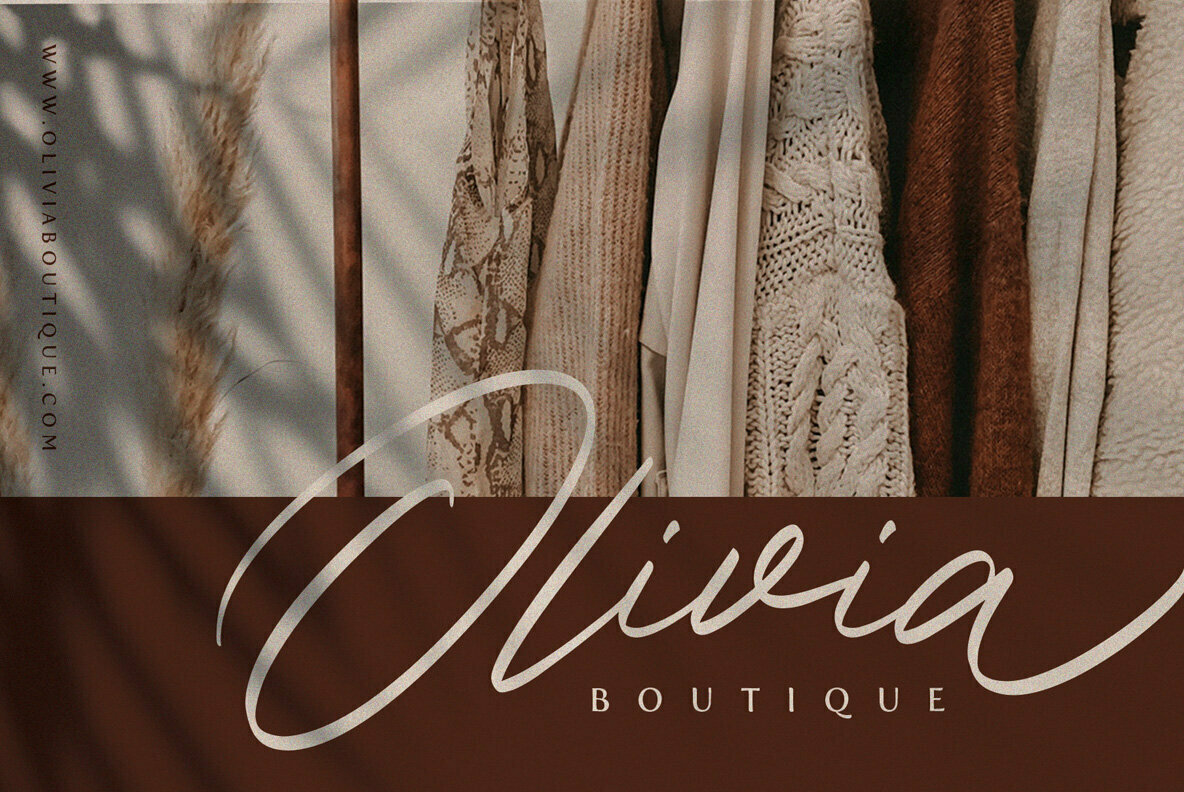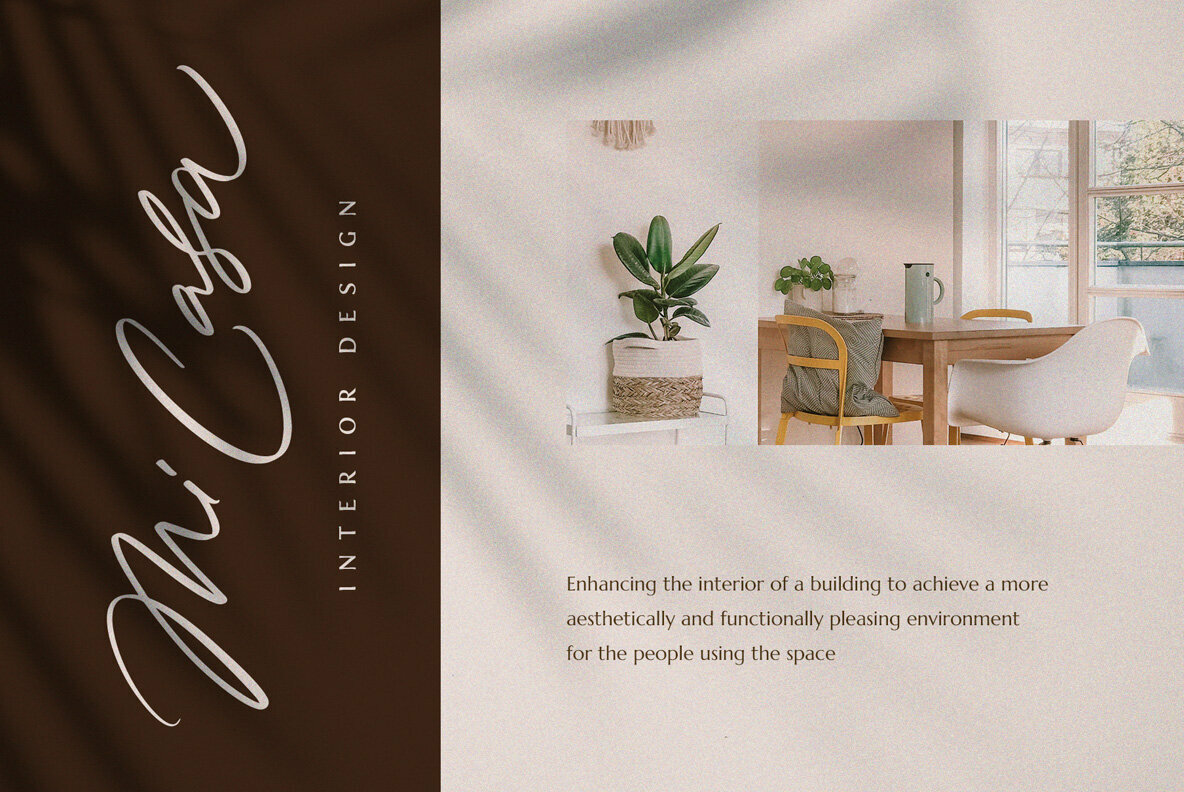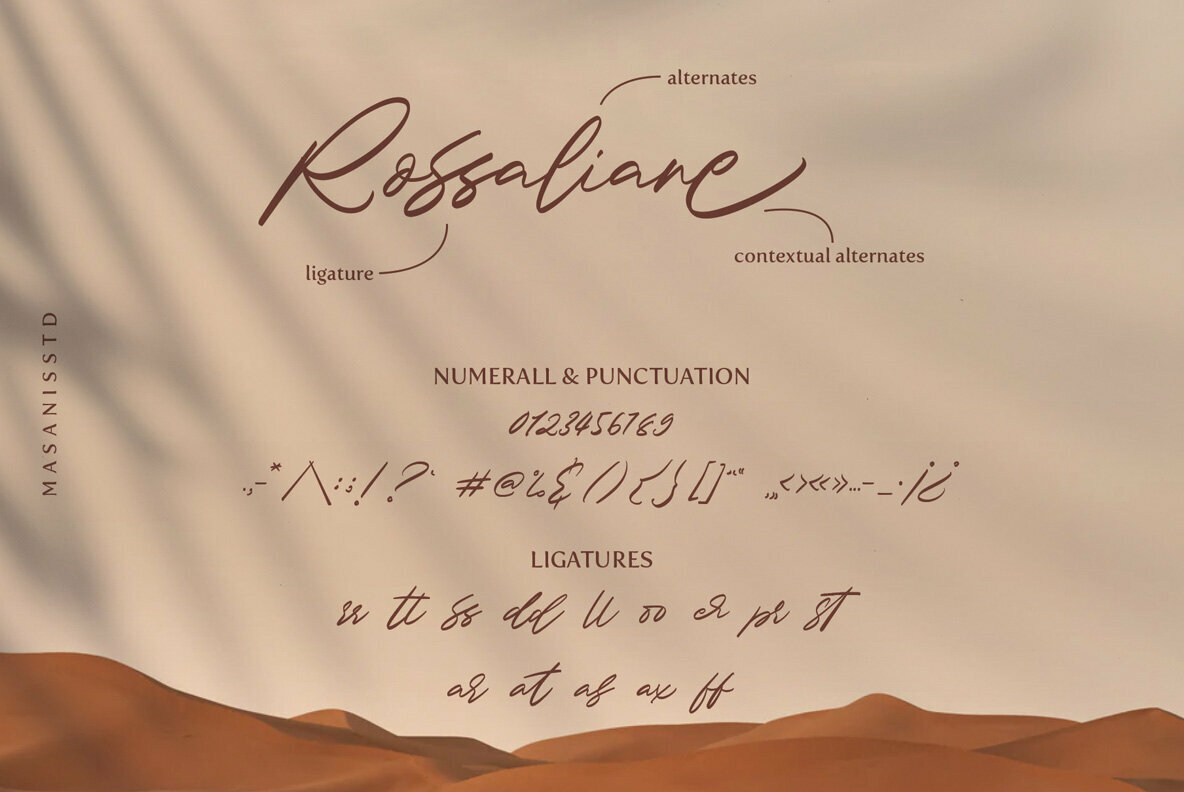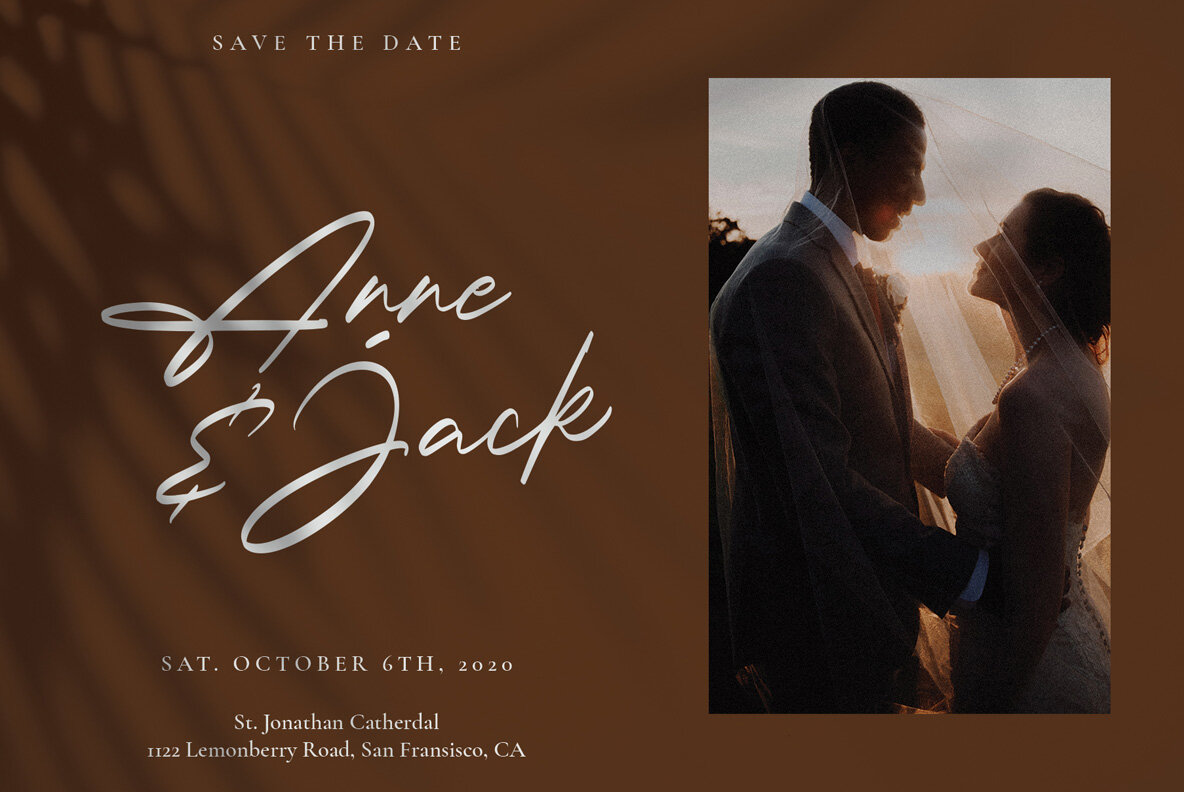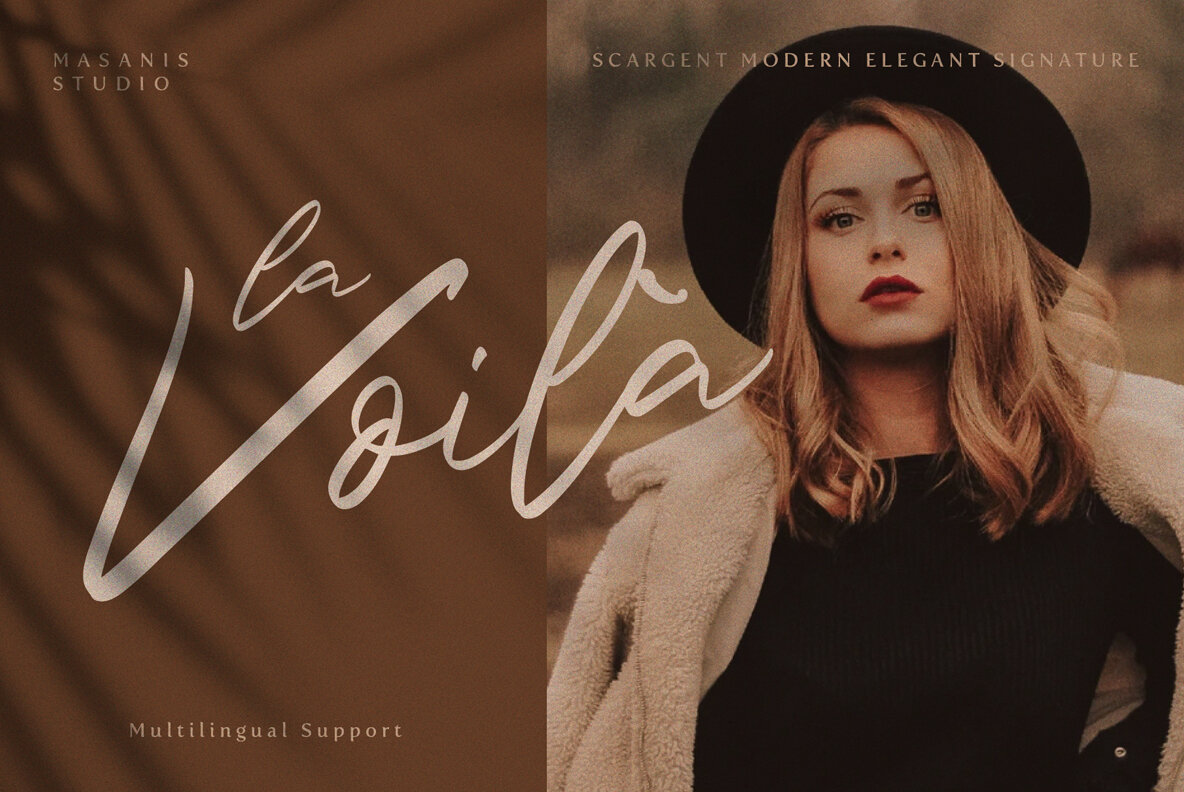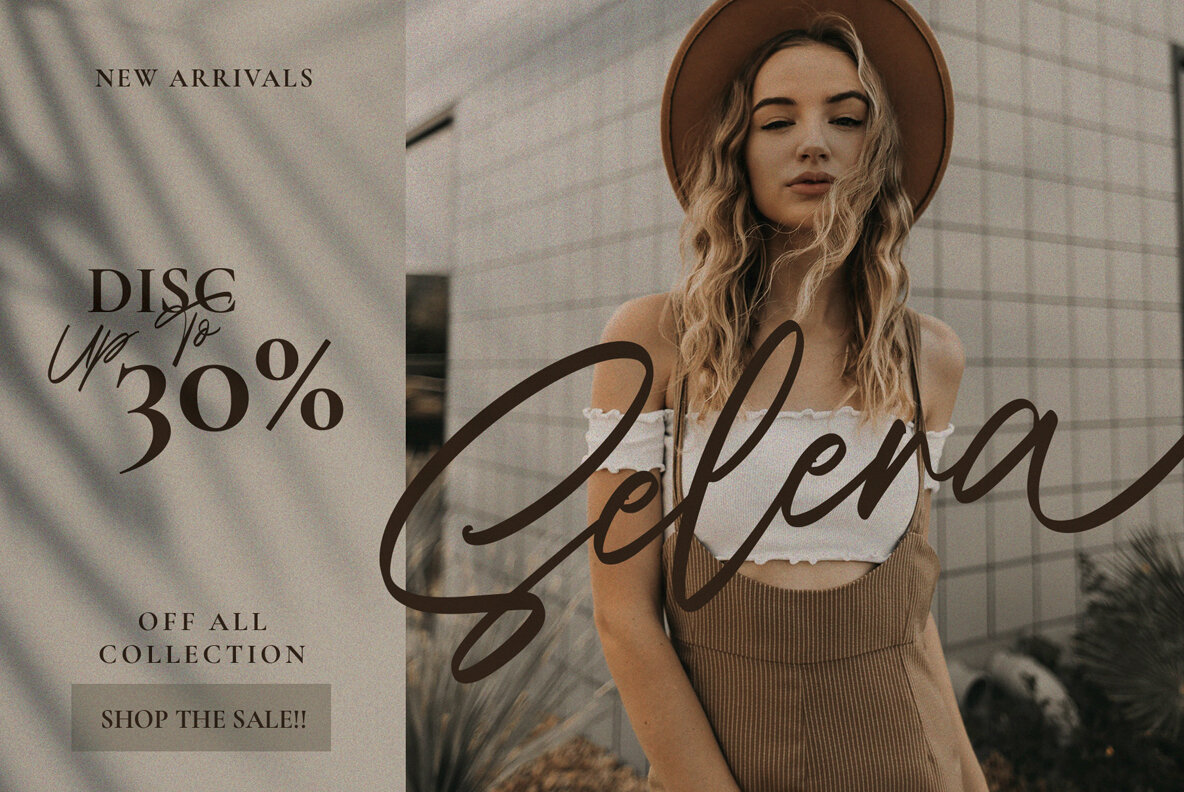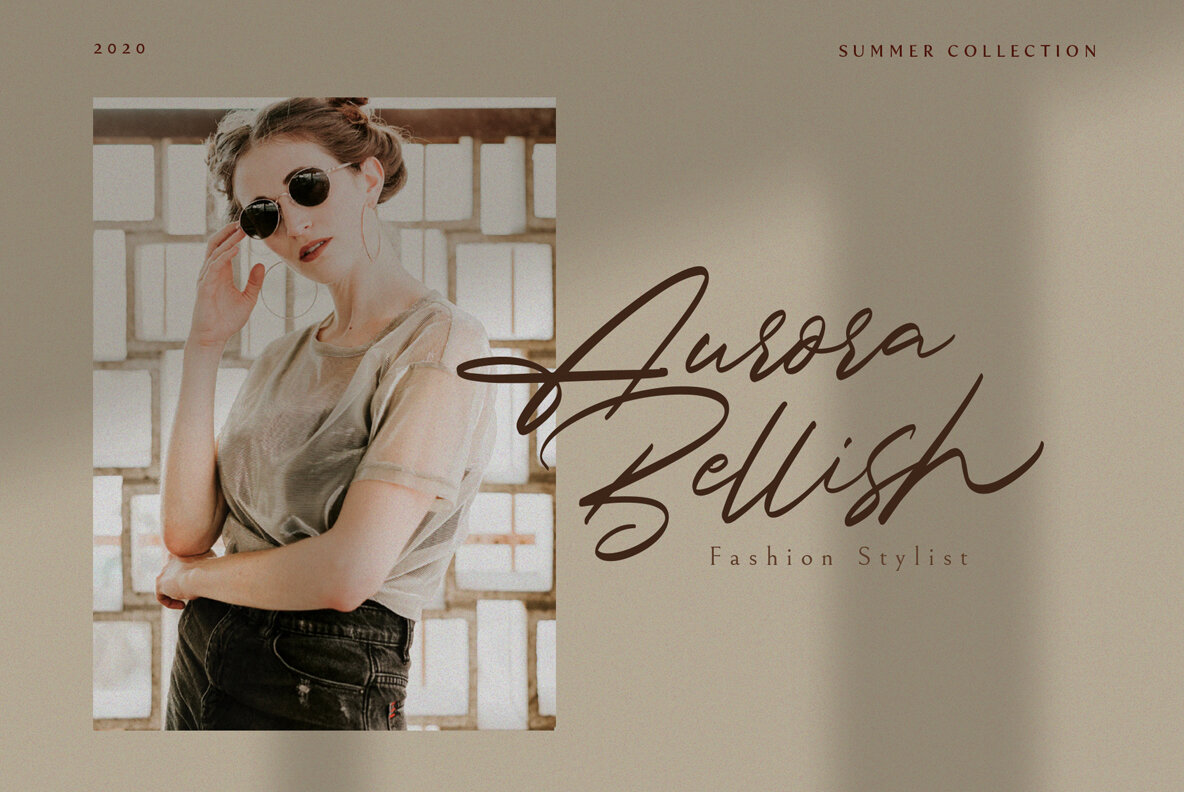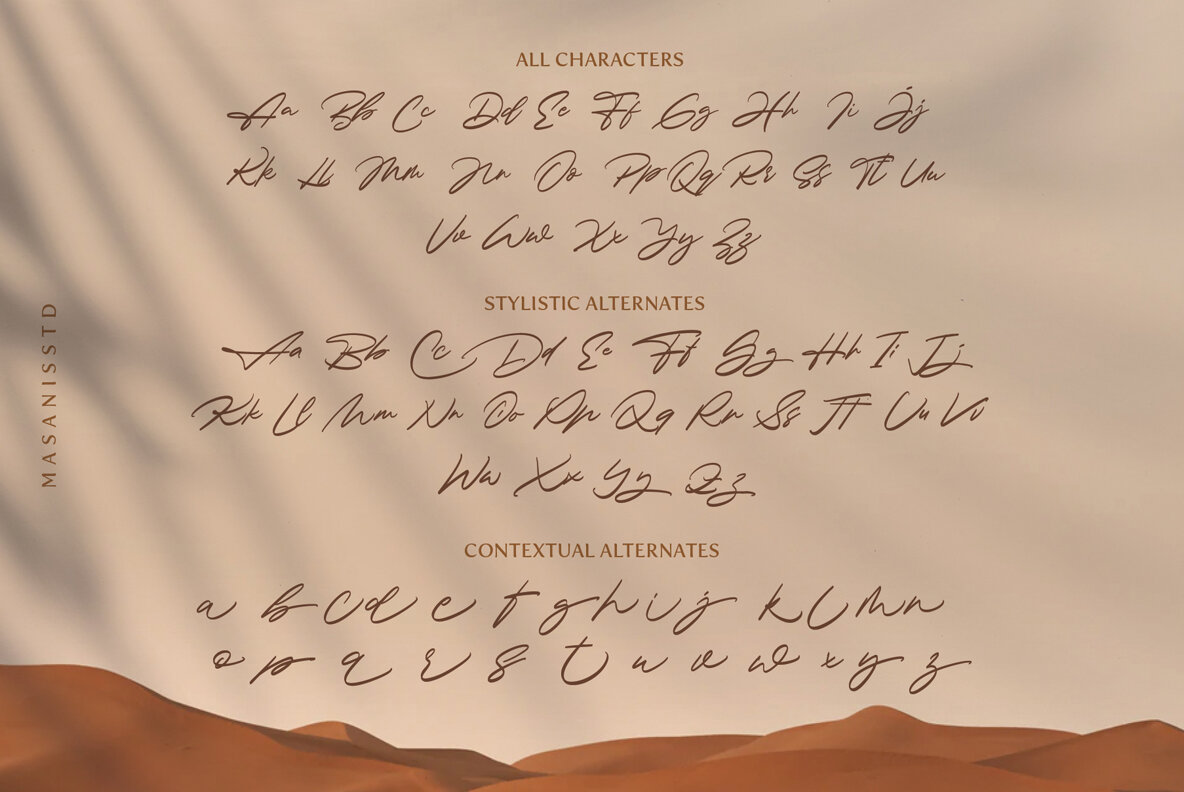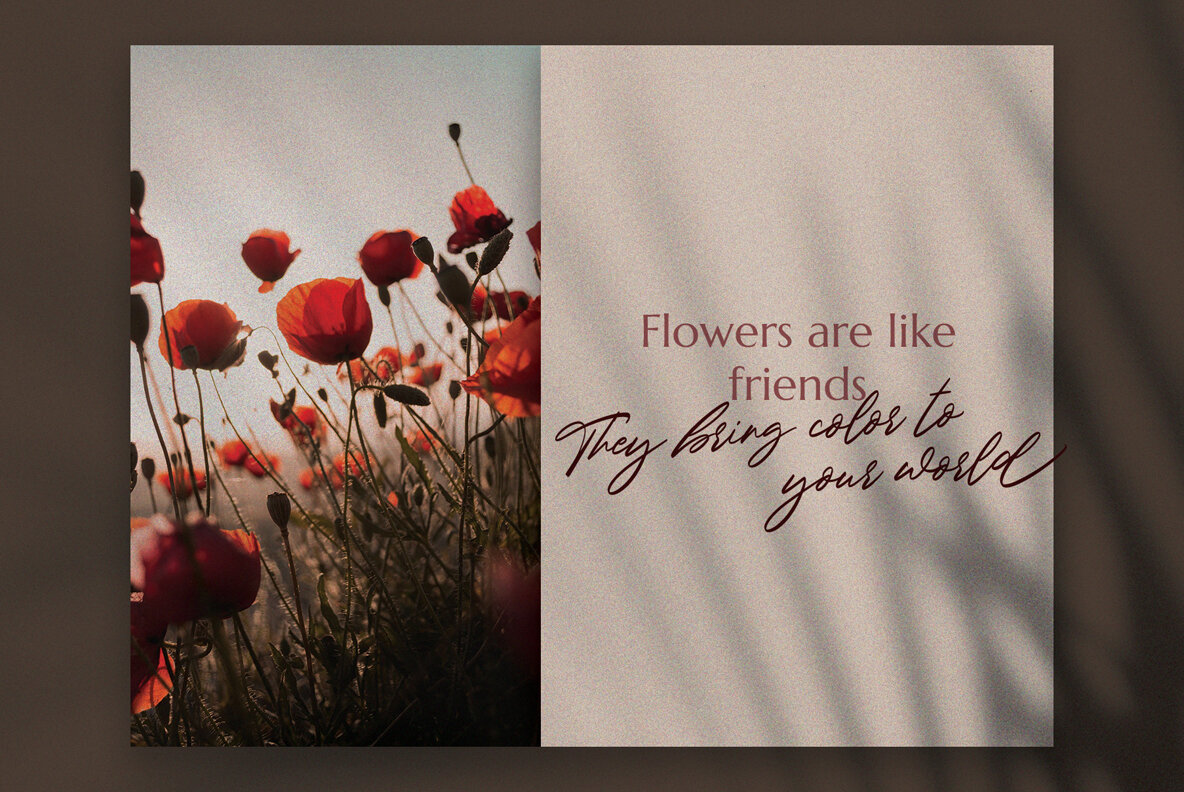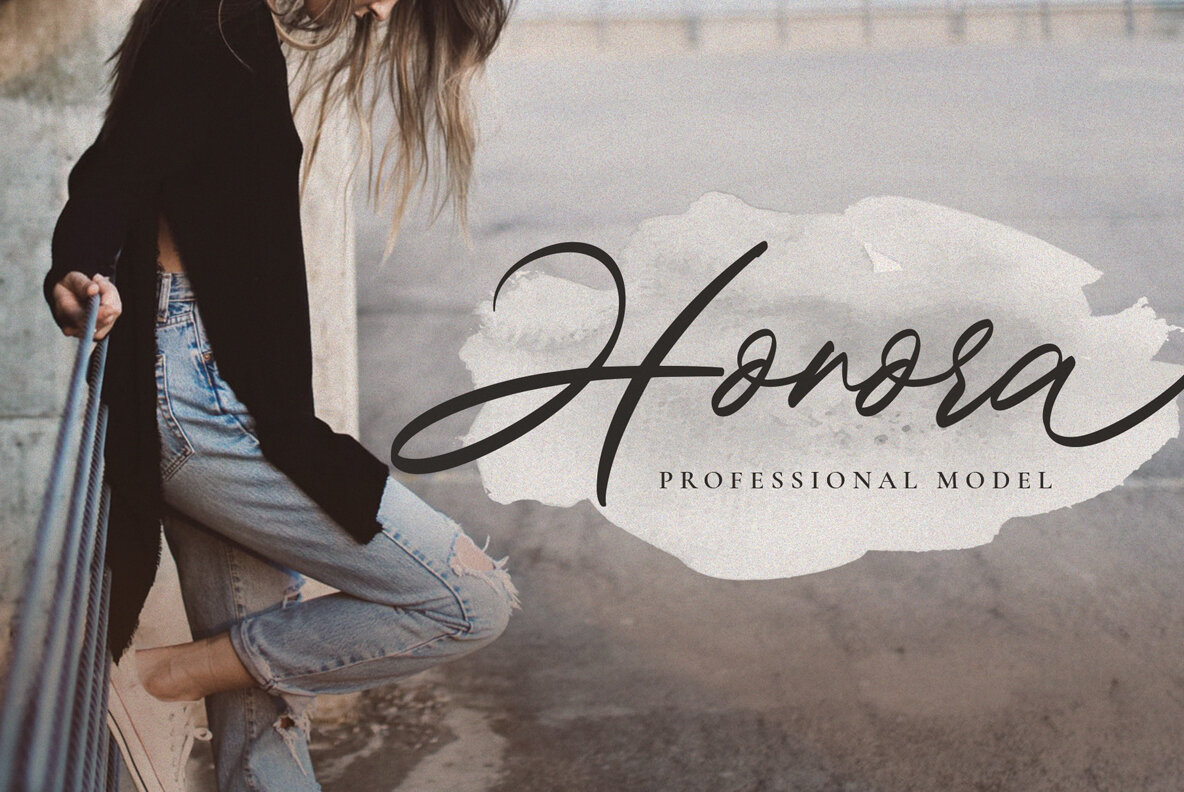
Scargent Font
Scargent Regular
Scargent is a magical handwritten font carefully created with a touch of elegance. This is a beautiful combination of timeless elegance and authentic calligraphy. It features an incredibly classic style, while still keeping a friendly feel. This font is perfect for logo, invitation, stationery, wedding designs, social media posts, advertisements, product packaging, product designs, label, photography, watermark, special events or anything and fonts are provided in TTF & OTF formats.